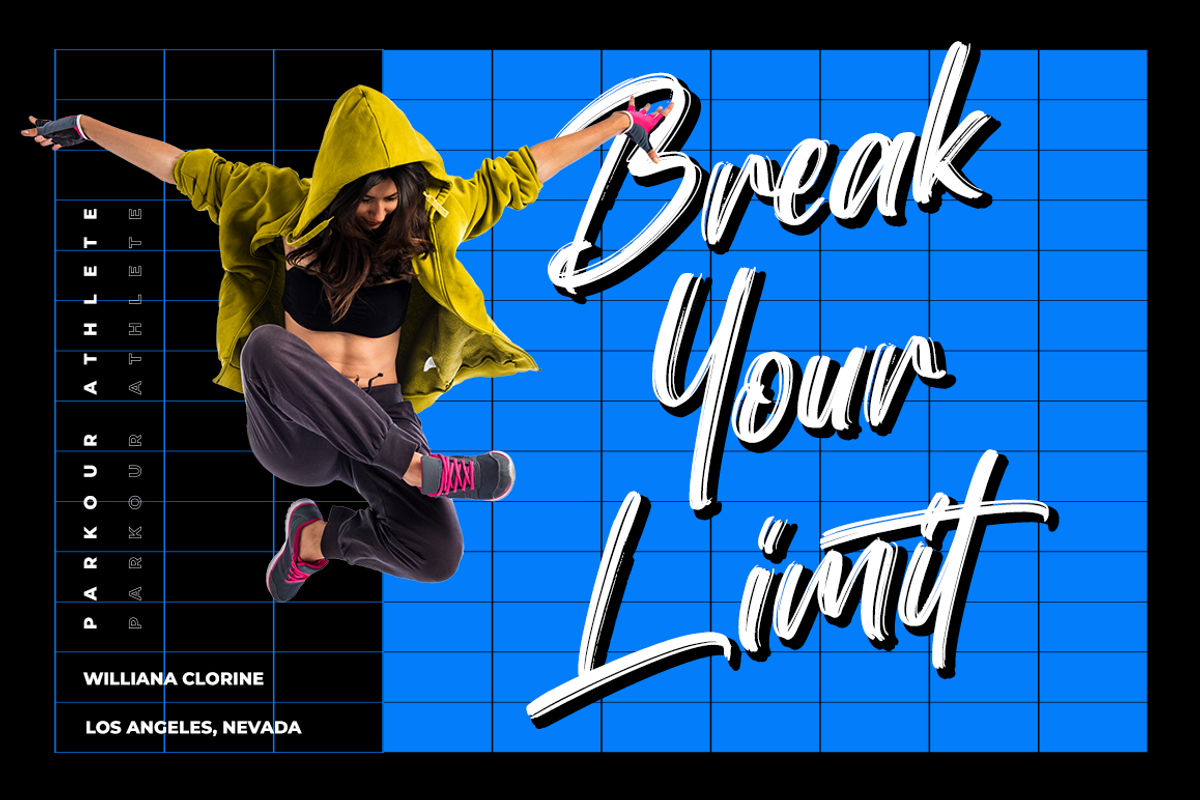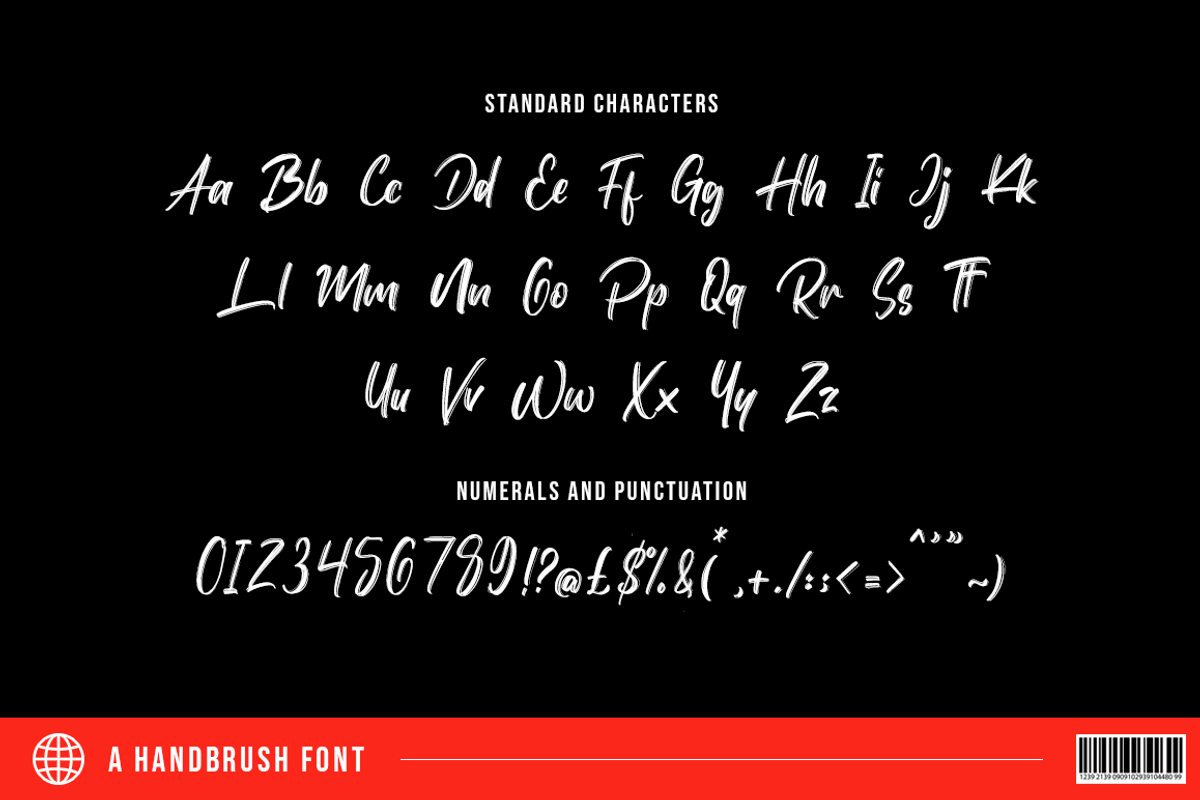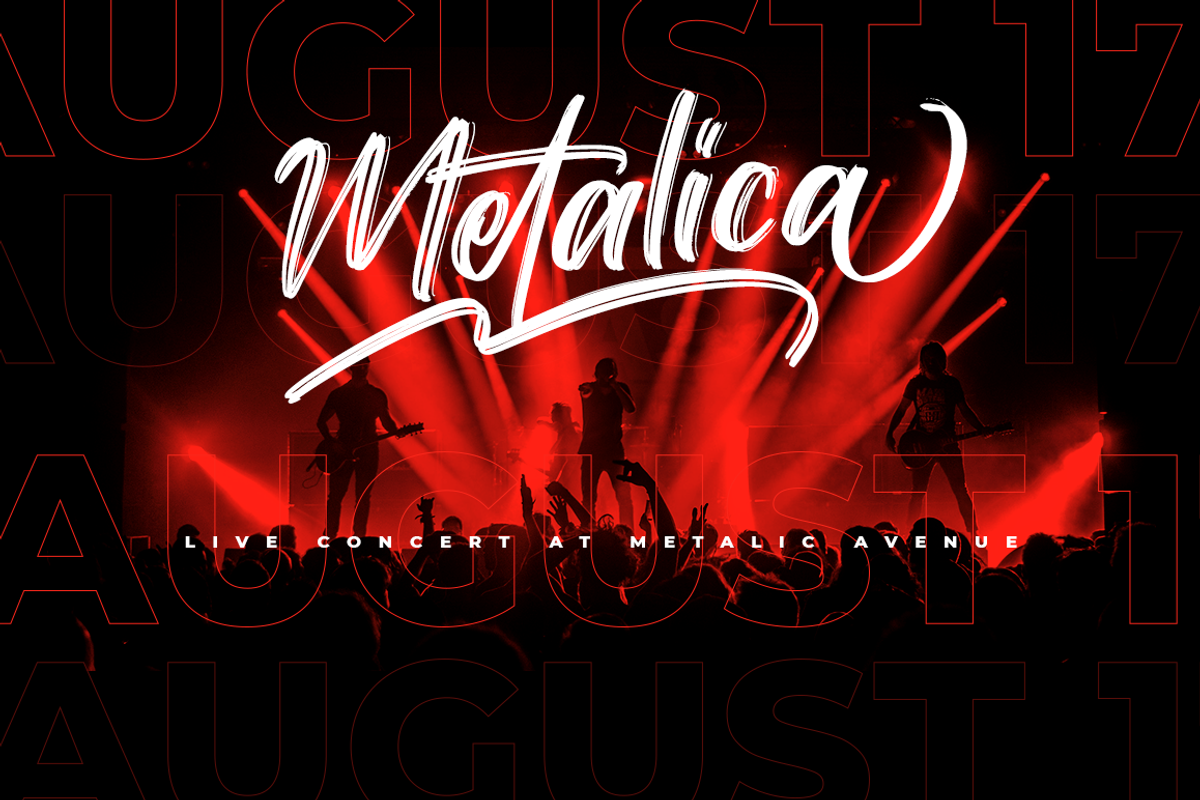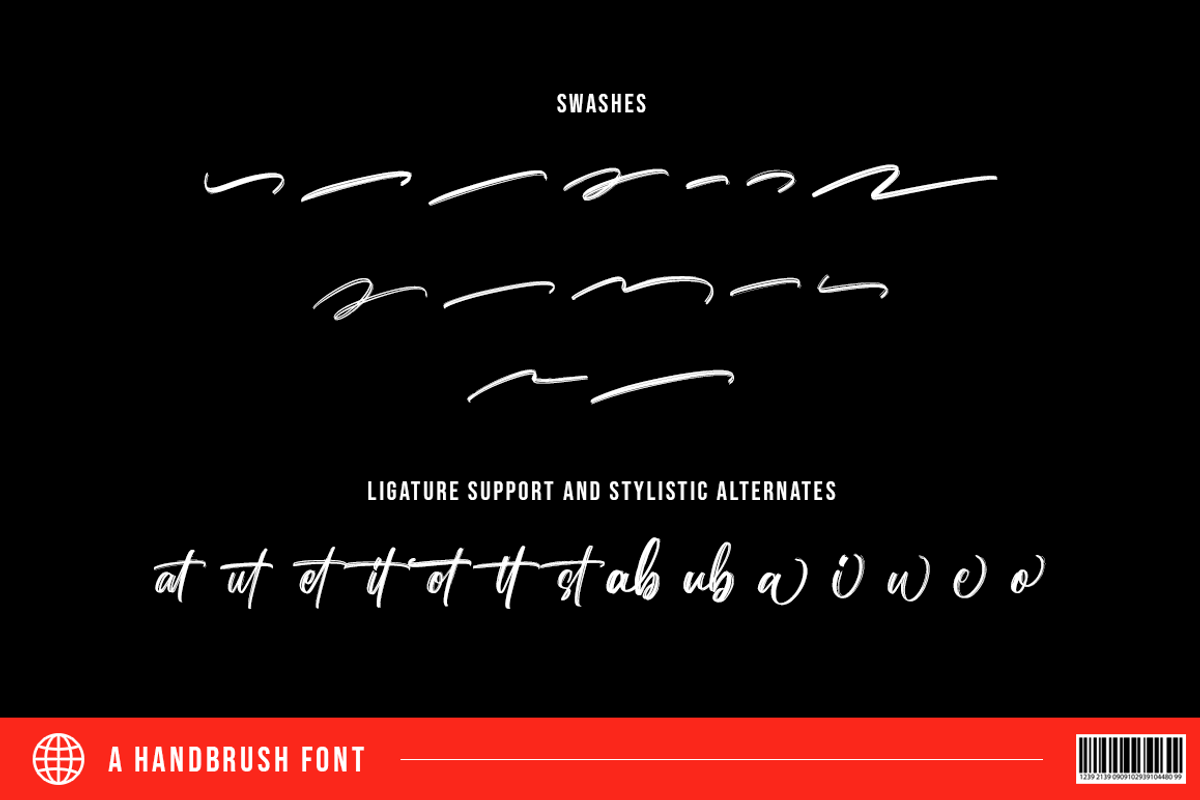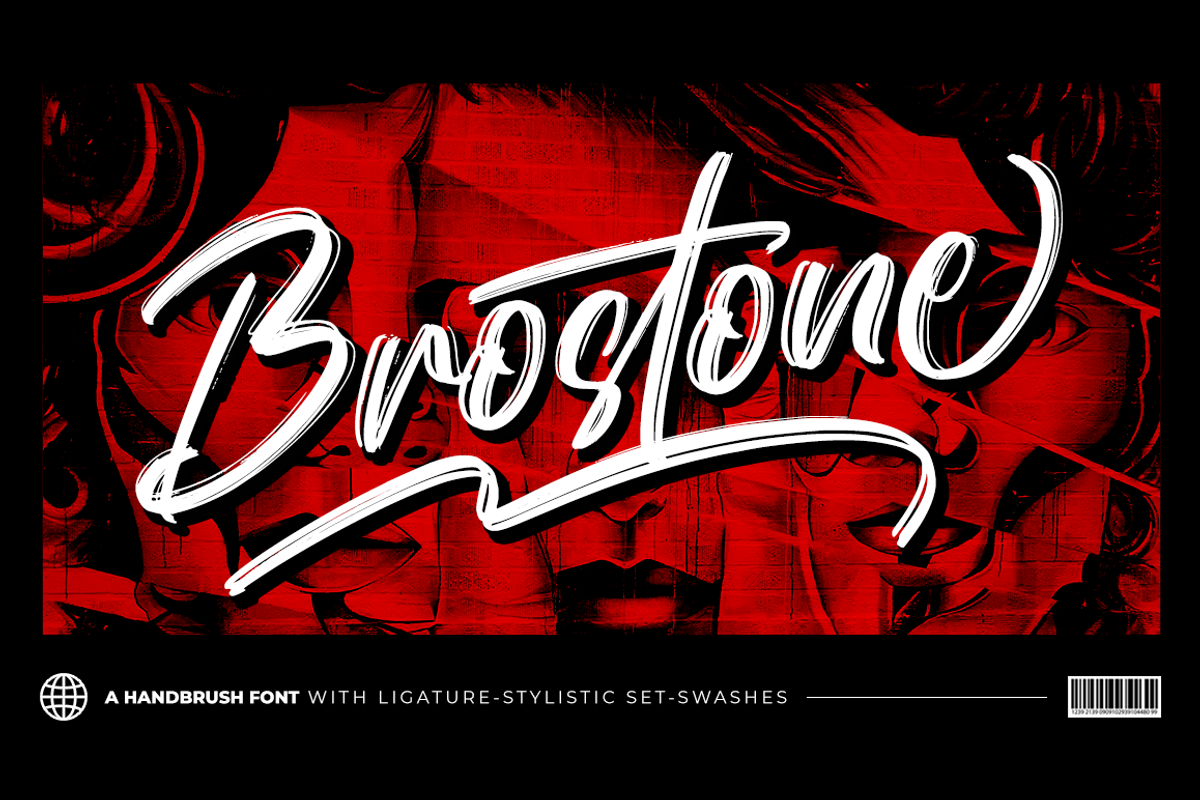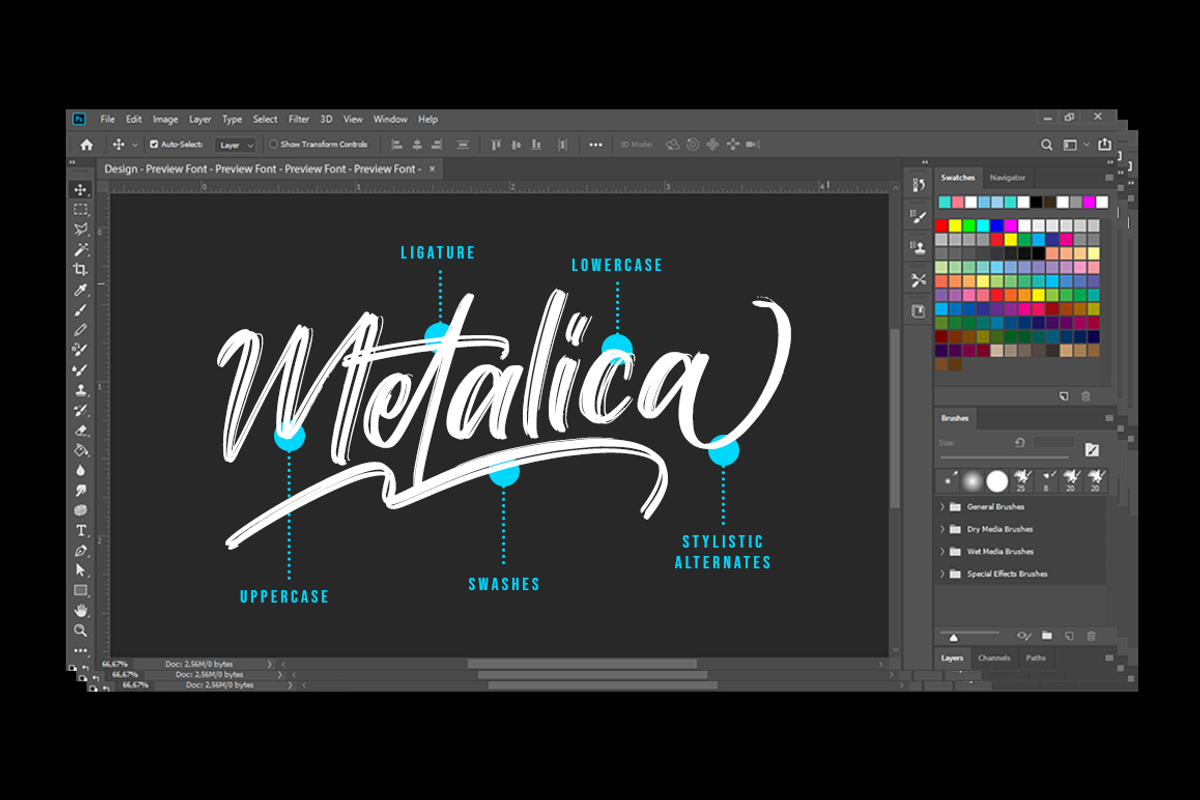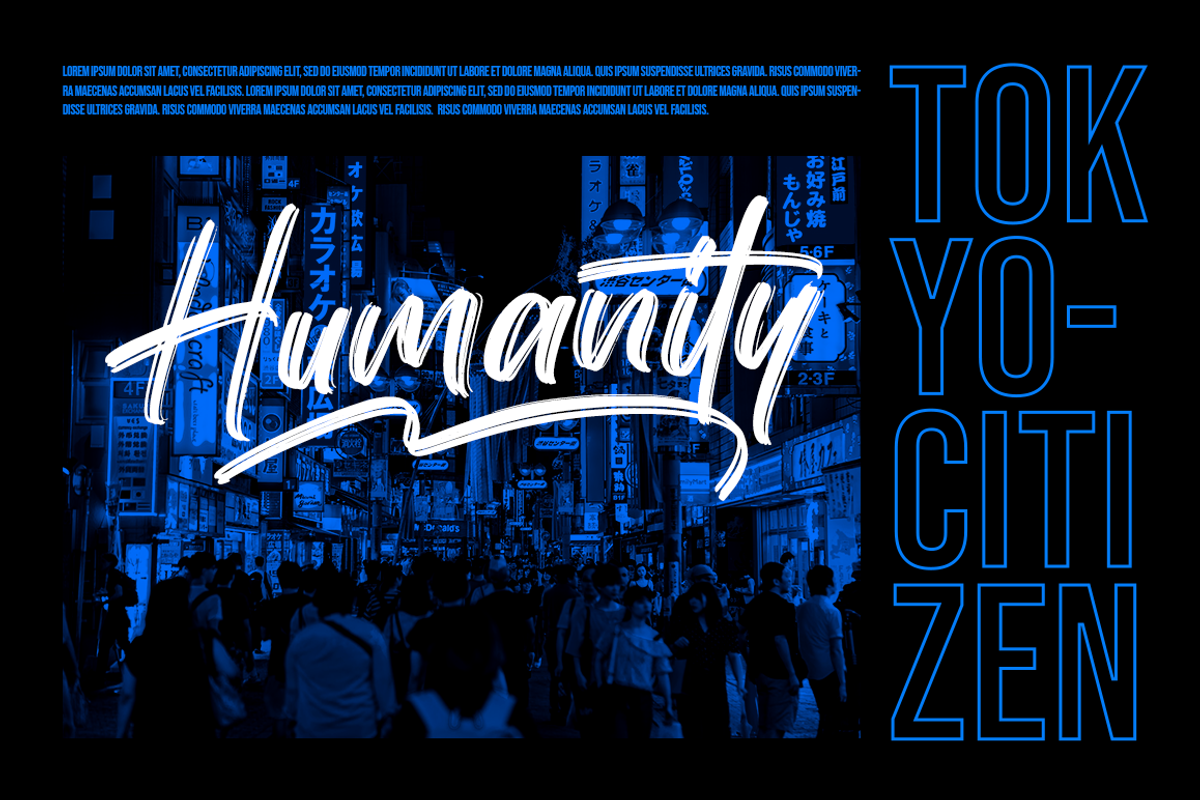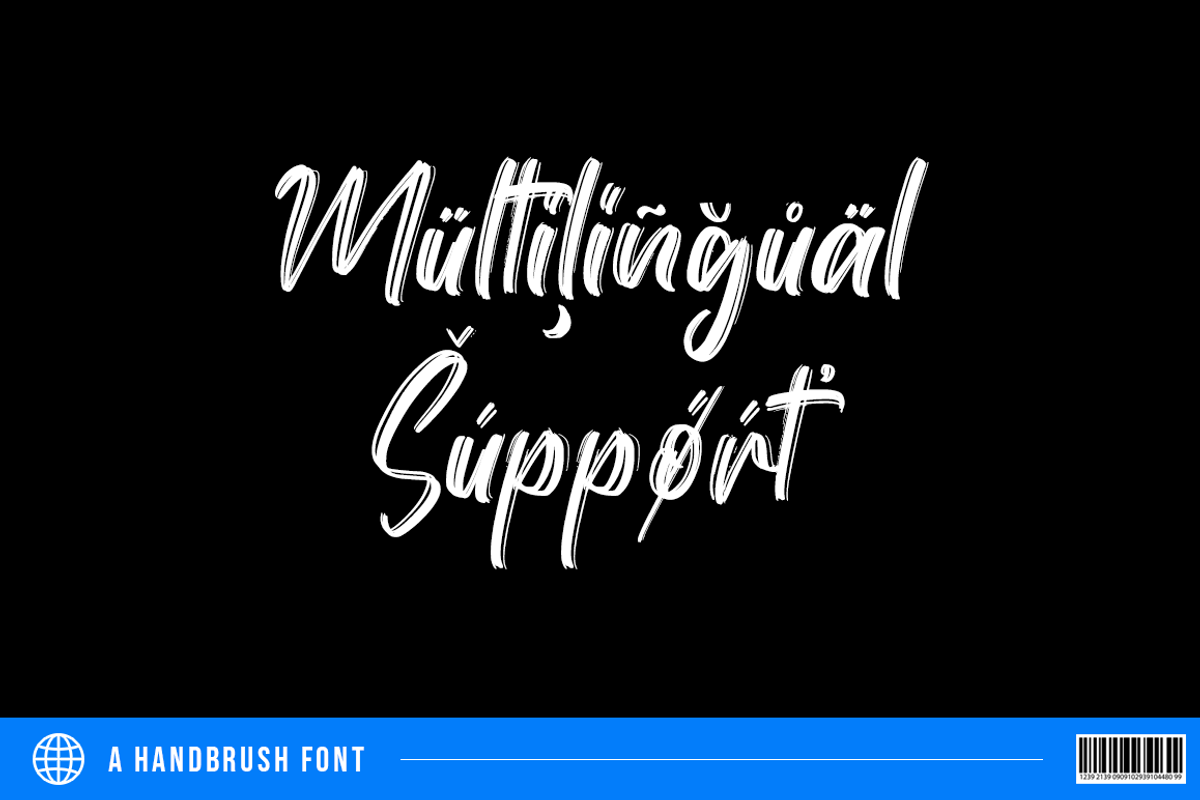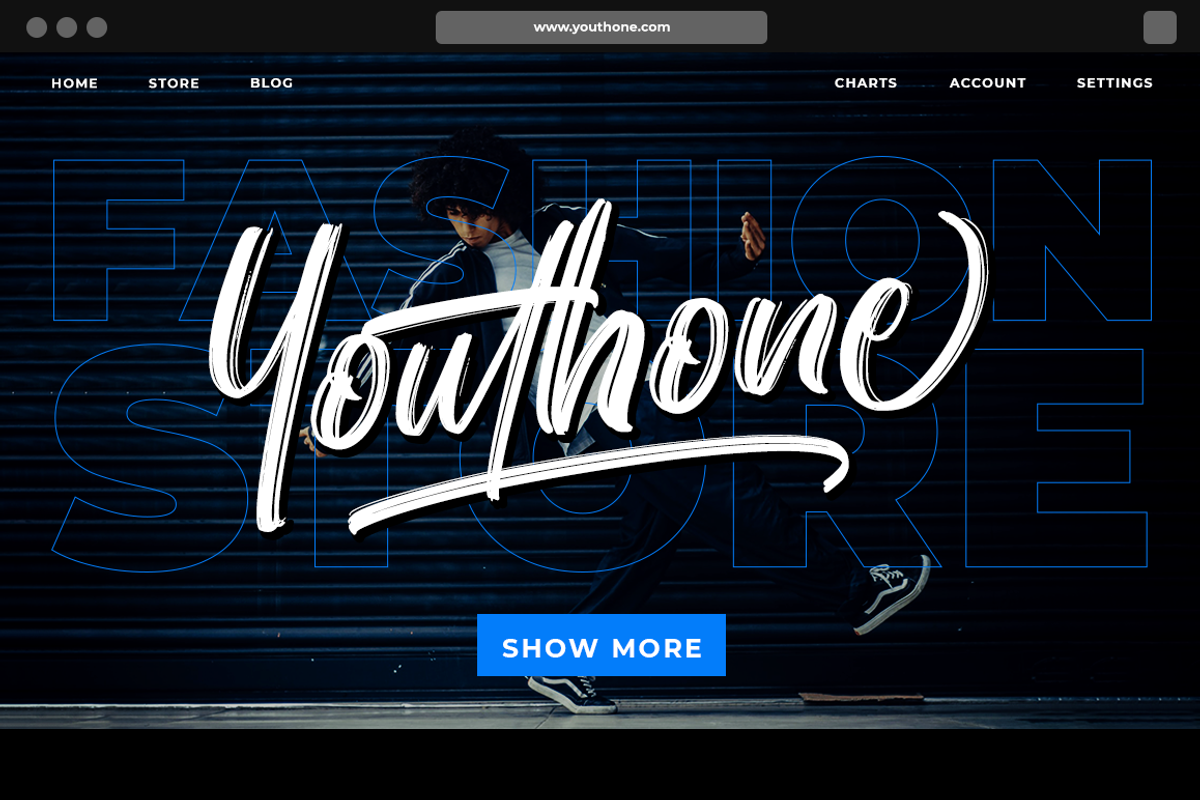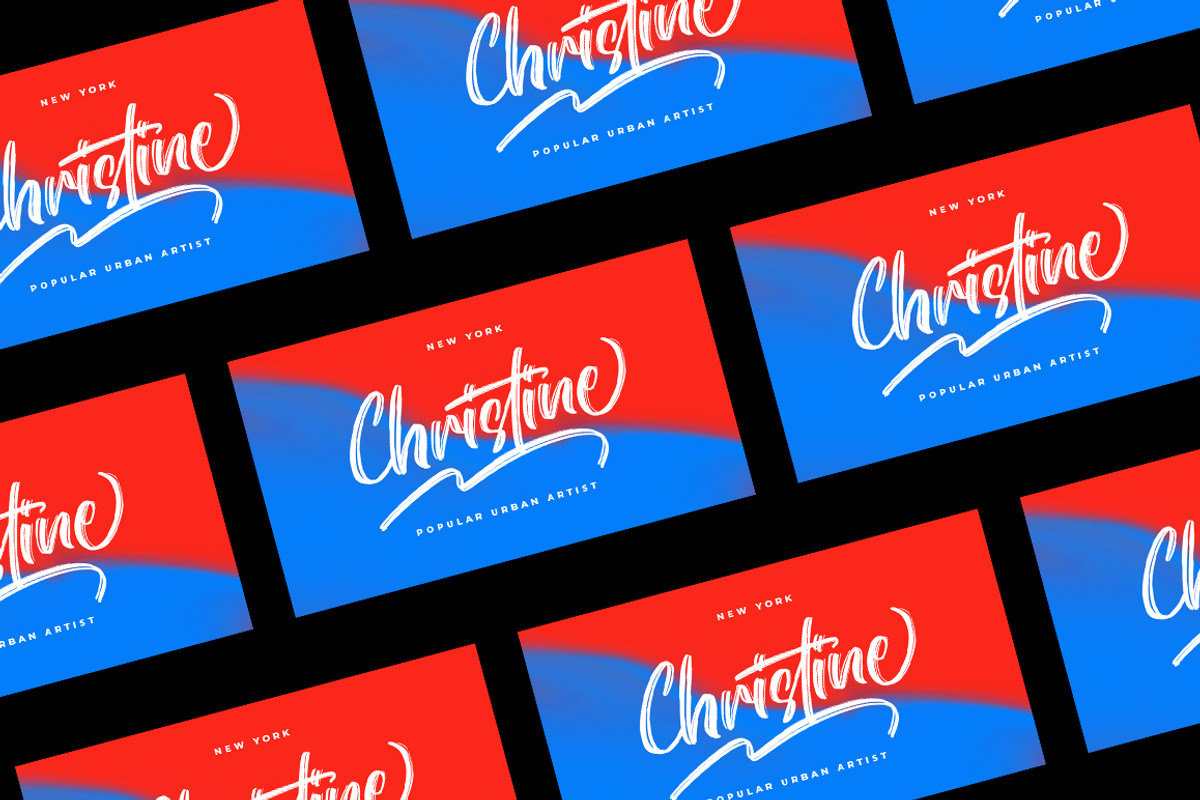
Brostone - Brush Font
Brostone is a unique brush font, perfect for use in modern design projects. This font has a slightly aggressive edge, and works well in displays for use in digital media.